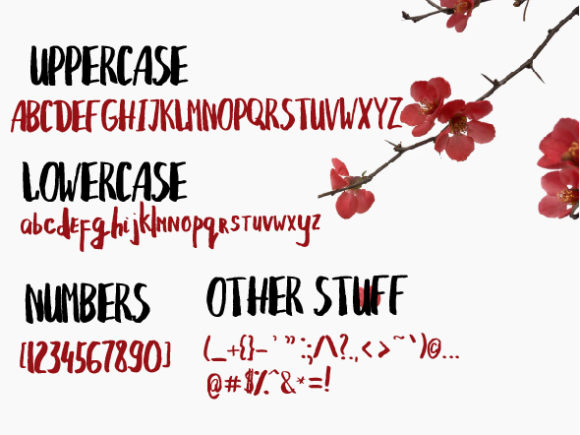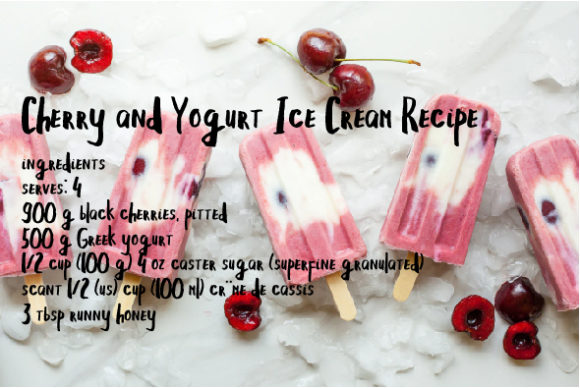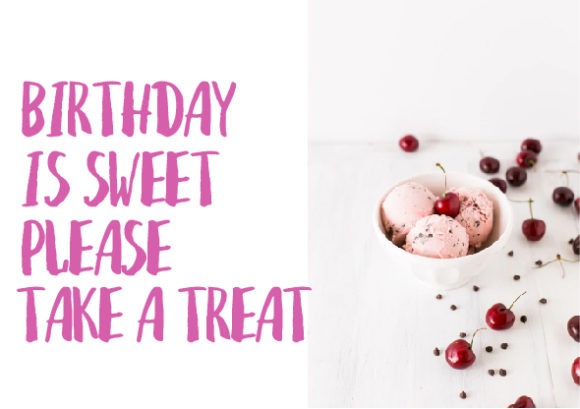
Berry Font: The Perfect Casual and Fun Handwritten Font for Designers and Crafters
Are you looking for a font that adds a personal touch to your designs? Look no further than Berry Font, a casual, fun handwritten font created by using a brush pen. This clean and quirky font is perfect for all your logos, branding, social media, and crafty DIY projects. In this article, we’ll dive into the world of Berry Font and explore its features, benefits, and uses.
What is Berry Font?
Berry Font is a unique and charming handwritten font that is designed to give your designs a personal and playful touch. Created with a brush pen, this font has a clean and quirky feel that sets it apart from other fonts. Its casual and fun nature makes it perfect for a wide range of design projects, from logos and branding to social media graphics and crafty DIY projects.
Features of Berry Font
So, what makes Berry Font so special? Here are some of its key features:
- Handwritten with a brush pen: Berry Font is created with a brush pen, giving it a unique and personal touch.
- Clean and quirky: This font has a clean and quirky feel that makes it perfect for designs that need a playful touch.
- Casual and fun: Berry Font is designed to be casual and fun, making it perfect for a wide range of design projects.
- Versatile: This font can be used for logos, branding, social media graphics, and crafty DIY projects.
Benefits of Using Berry Font
So, why should you use Berry Font for your design projects? Here are some of its benefits:
- Adds a personal touch: Berry Font adds a personal touch to your designs, making them stand out from the crowd.
- Easy to read: This font is clean and easy to read, making it perfect for designs that need to communicate a message.
- Unique and quirky: Berry Font is unique and quirky, making it perfect for designs that need to stand out.
- Perfect for crafty DIY projects: This font is perfect for crafty DIY projects, such as handmade cards, invitations, and crafts.
Uses of Berry Font
So, what can you use Berry Font for? Here are some ideas:
- Logos and branding: Use Berry Font to create unique and memorable logos and branding for your business.
- Social media graphics: This font is perfect for social media graphics, such as Facebook posts, Instagram stories, and Twitter headers.
- Crafty DIY projects: Use Berry Font for handmade cards, invitations, and crafts.
- Stationery and paper crafts: This font is perfect for stationery and paper crafts, such as journals, planners, and stickers.
Tips for Using Berry Font
Here are some tips for using Berry Font:
- Use it for headings and titles: Berry Font is perfect for headings and titles, as it adds a personal touch to your designs.
- Pair it with other fonts: This font pairs well with other fonts, such as sans-serif fonts and script fonts.
- Experiment with colors: Berry Font looks great in a variety of colors, so don’t be afraid to experiment and find the perfect color for your design.
In conclusion, Berry Font is a unique and charming handwritten font that is perfect for designers and crafters. Its casual and fun nature makes it perfect for a wide range of design projects, from logos and branding to social media graphics and crafty DIY projects. With its clean and quirky feel, Berry Font is sure to add a personal touch to your designs. So why not give it a try and see what amazing designs you can create?